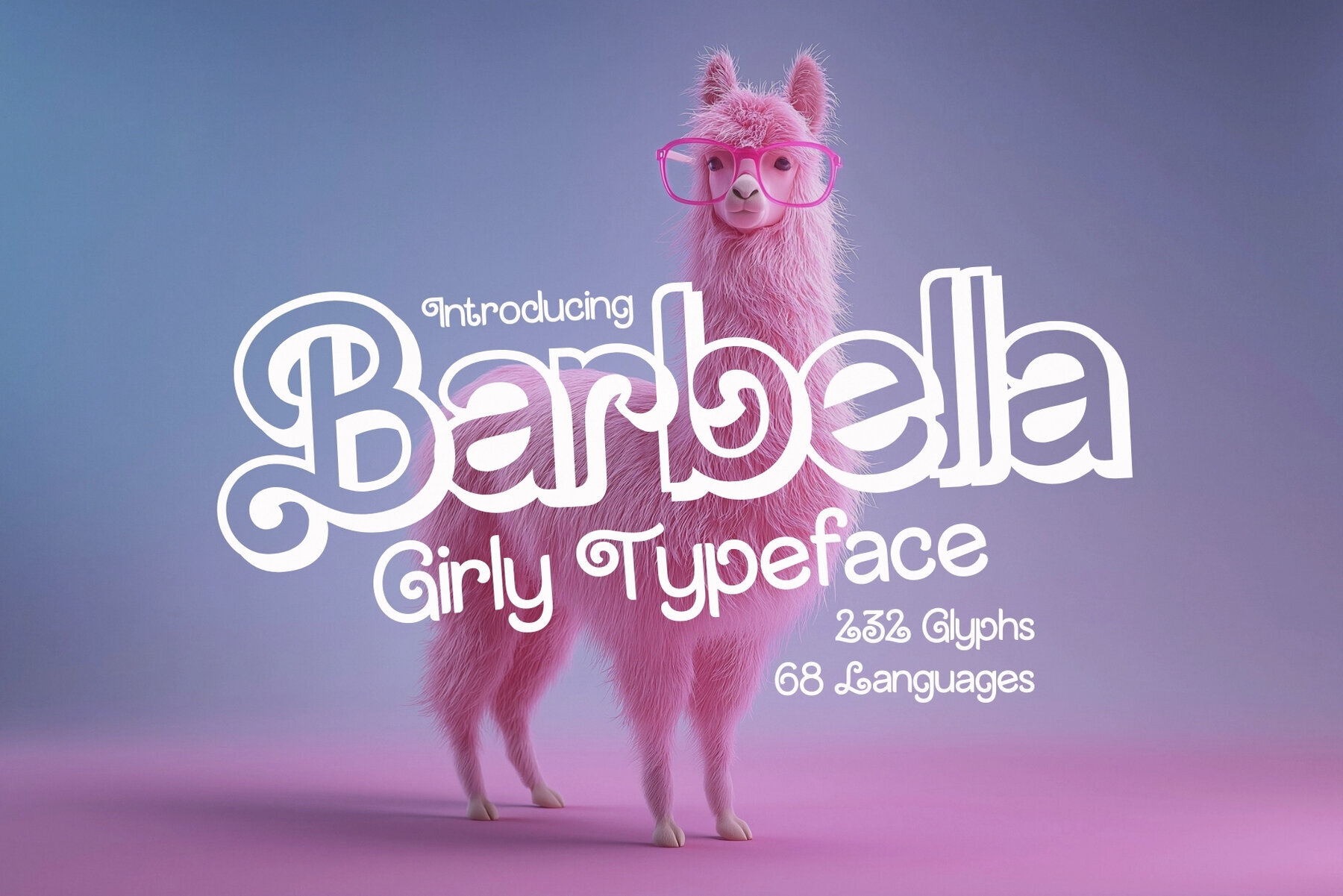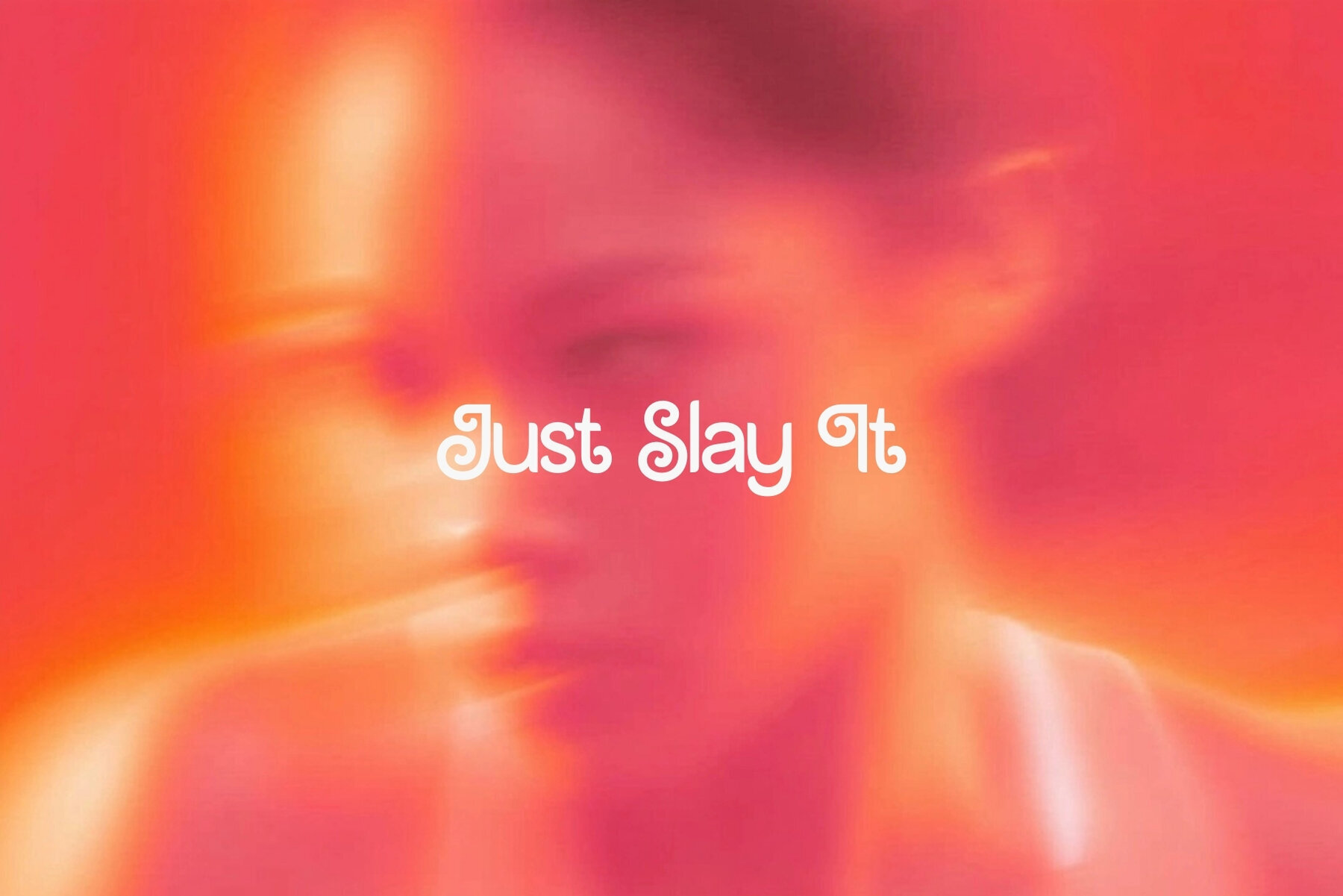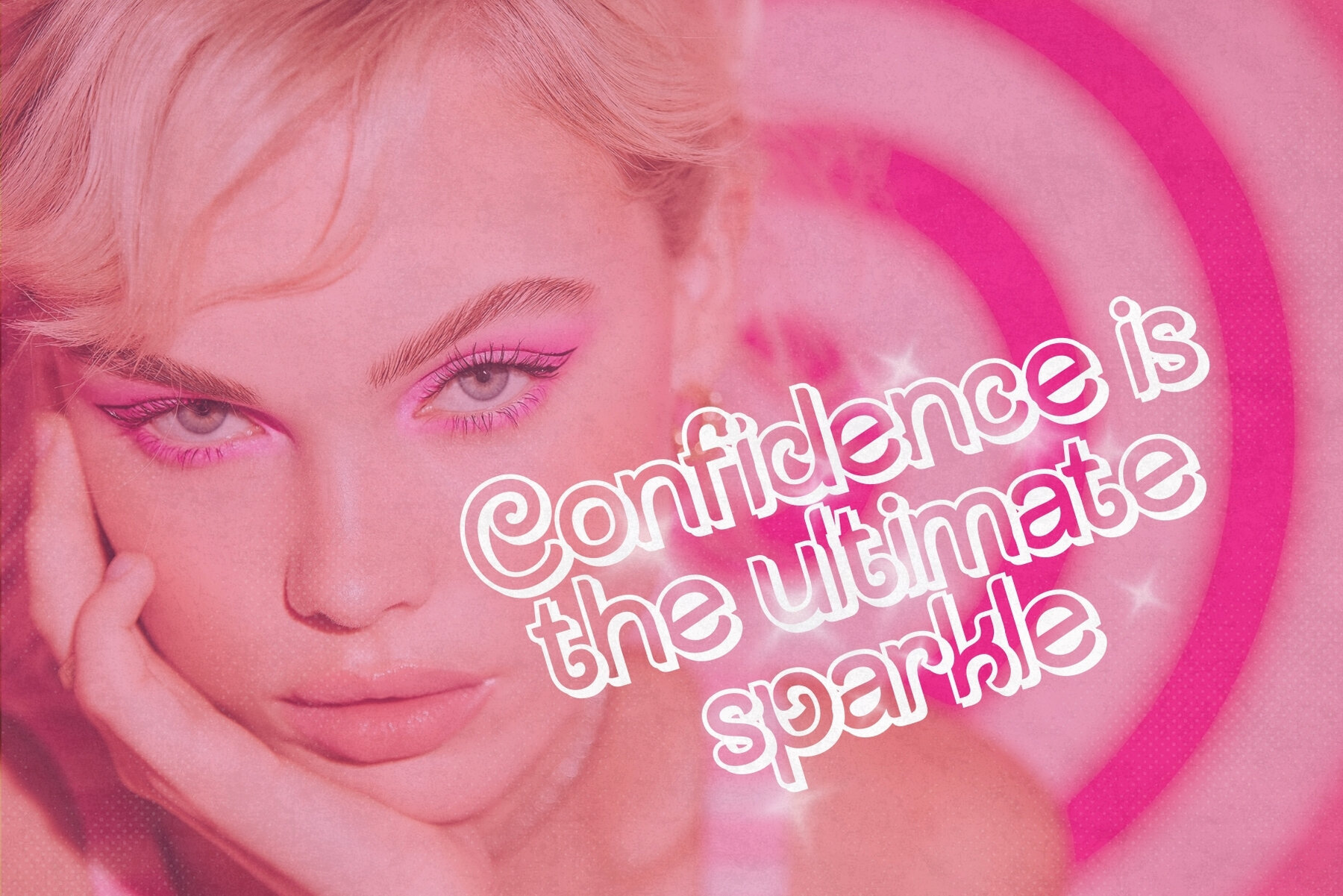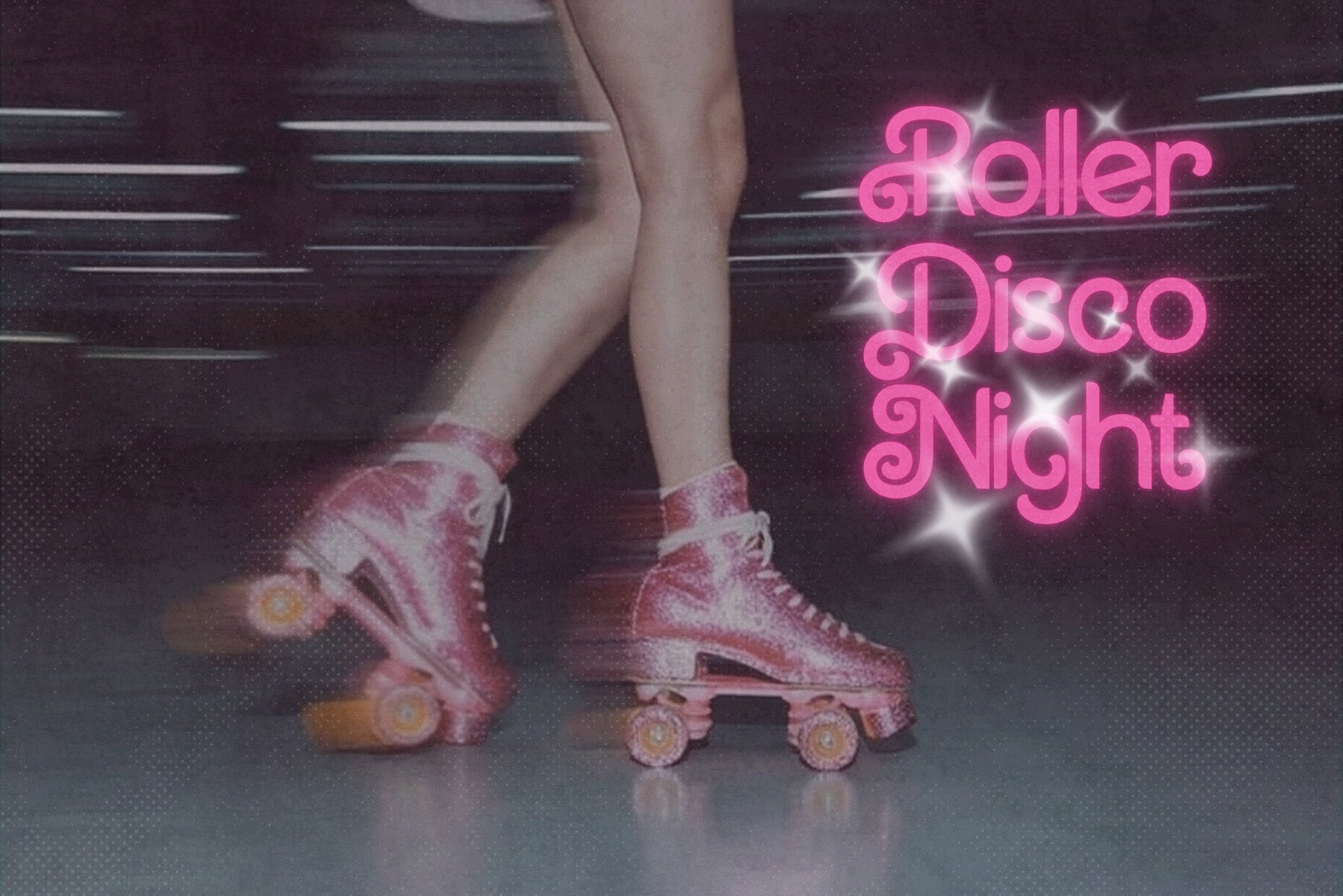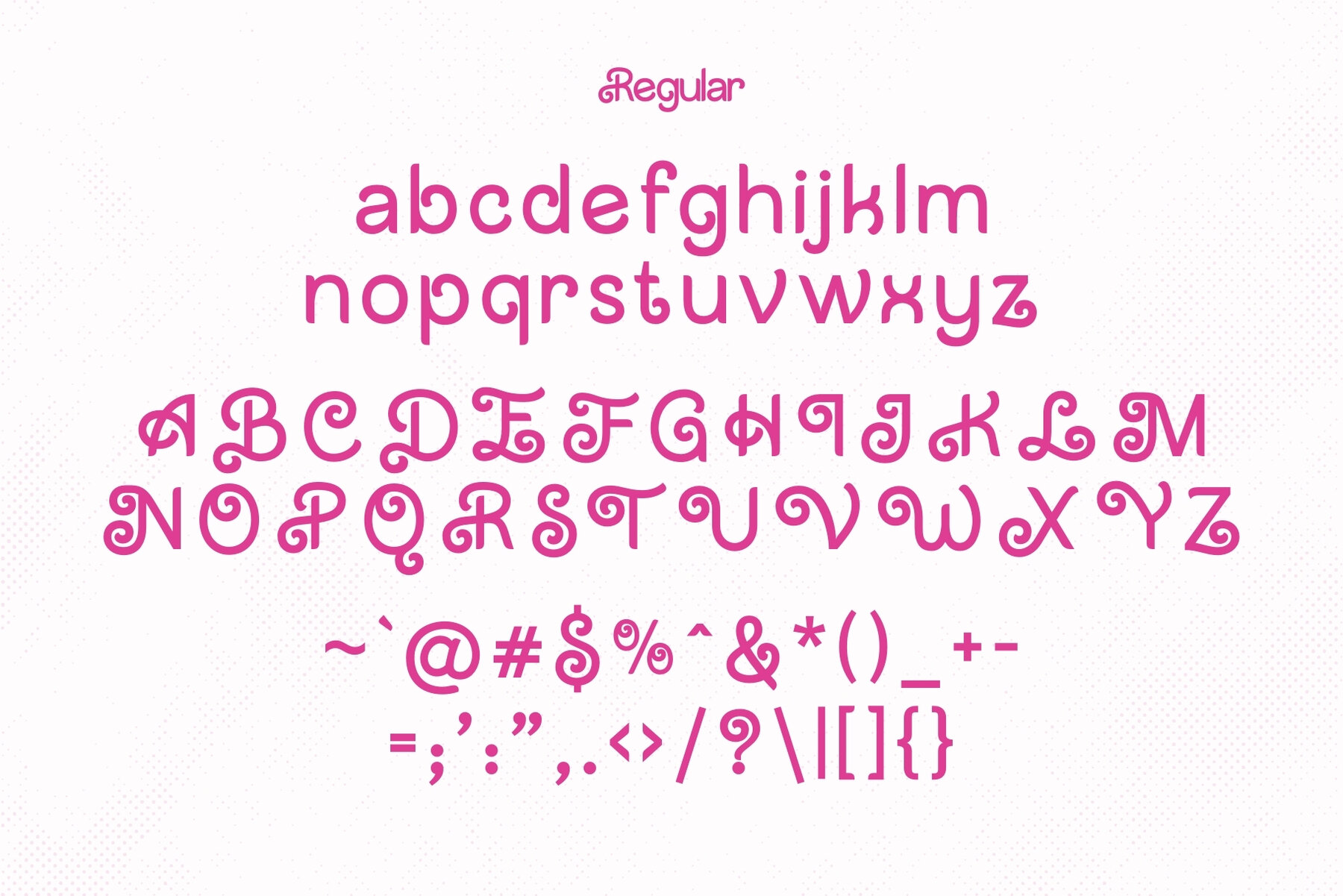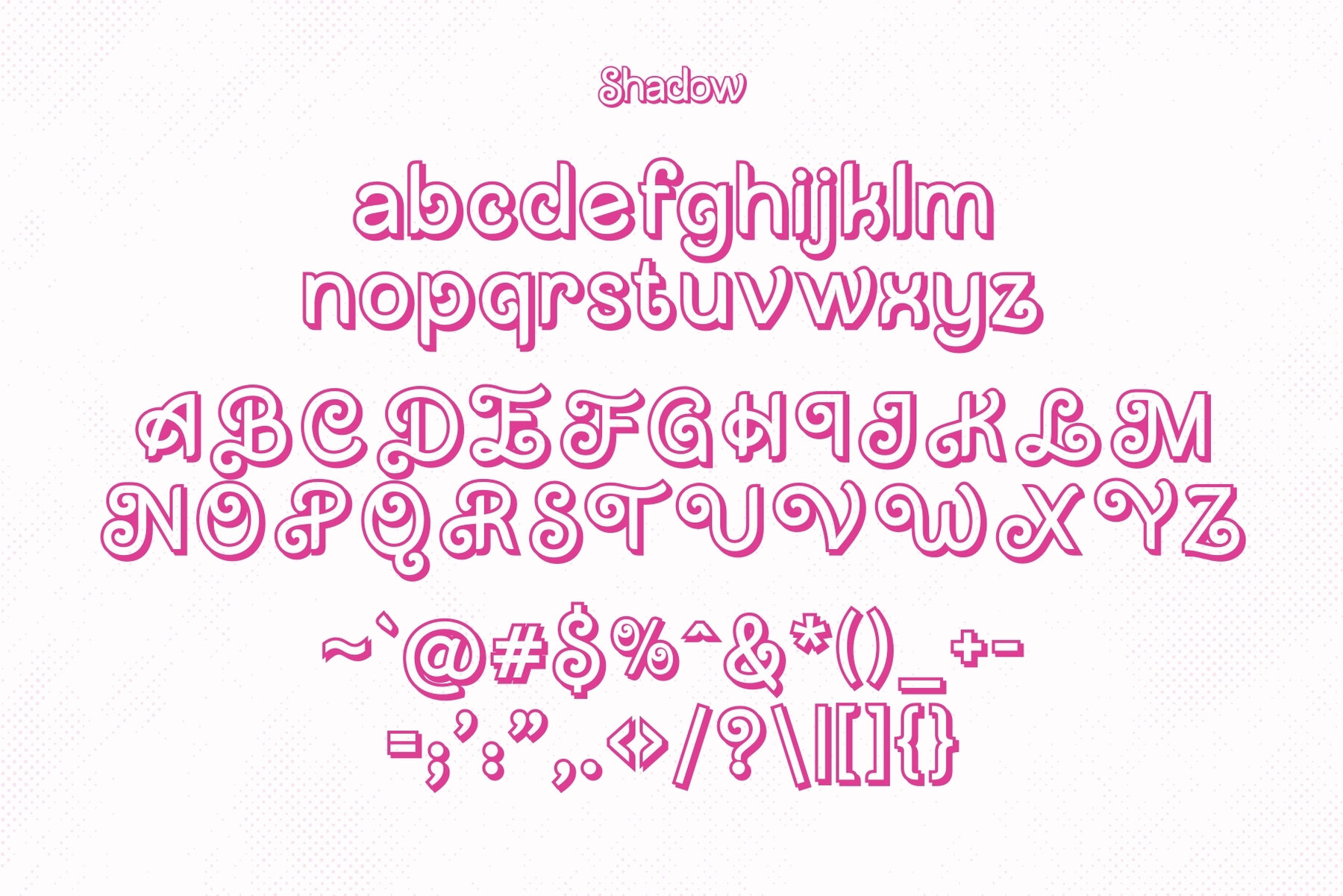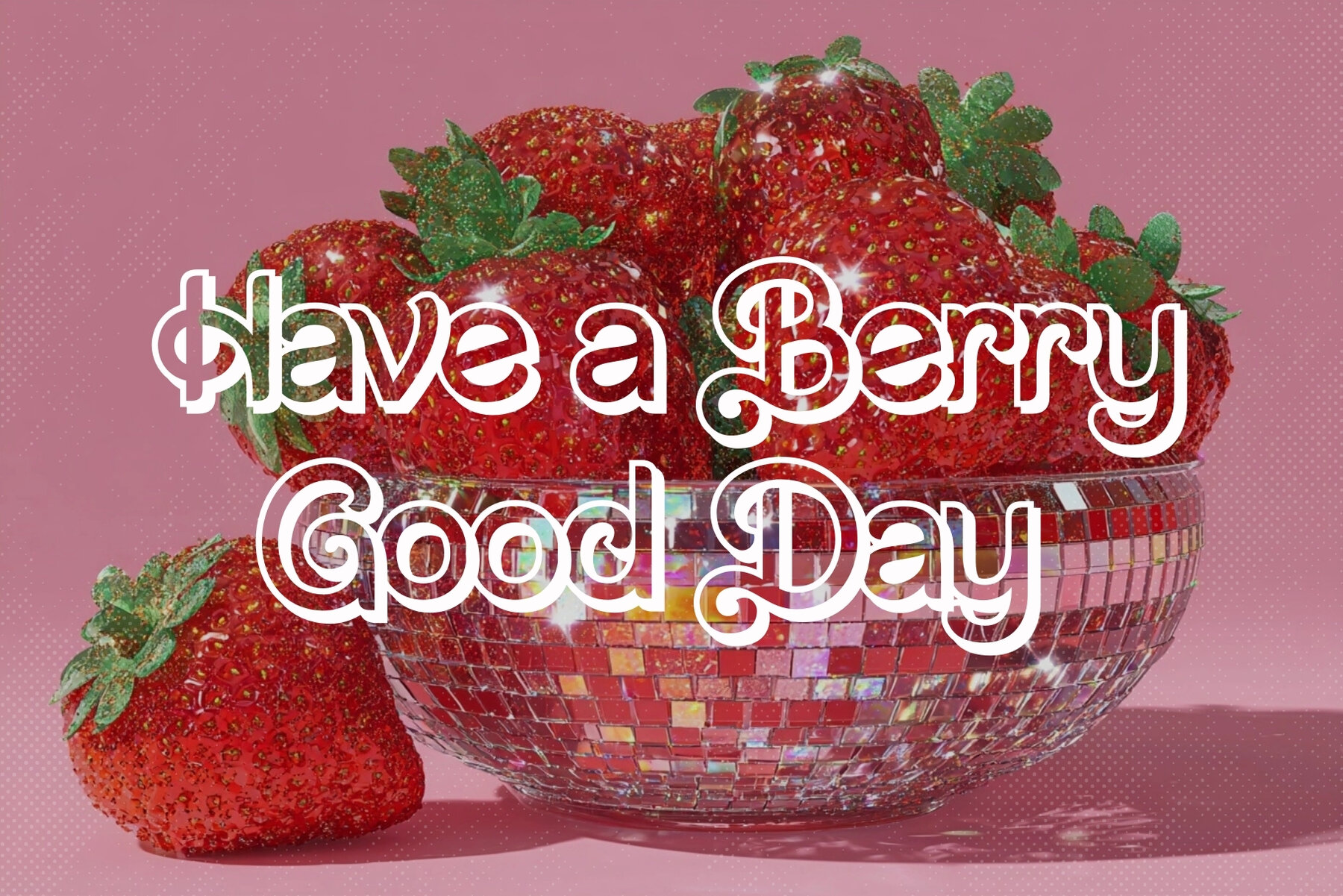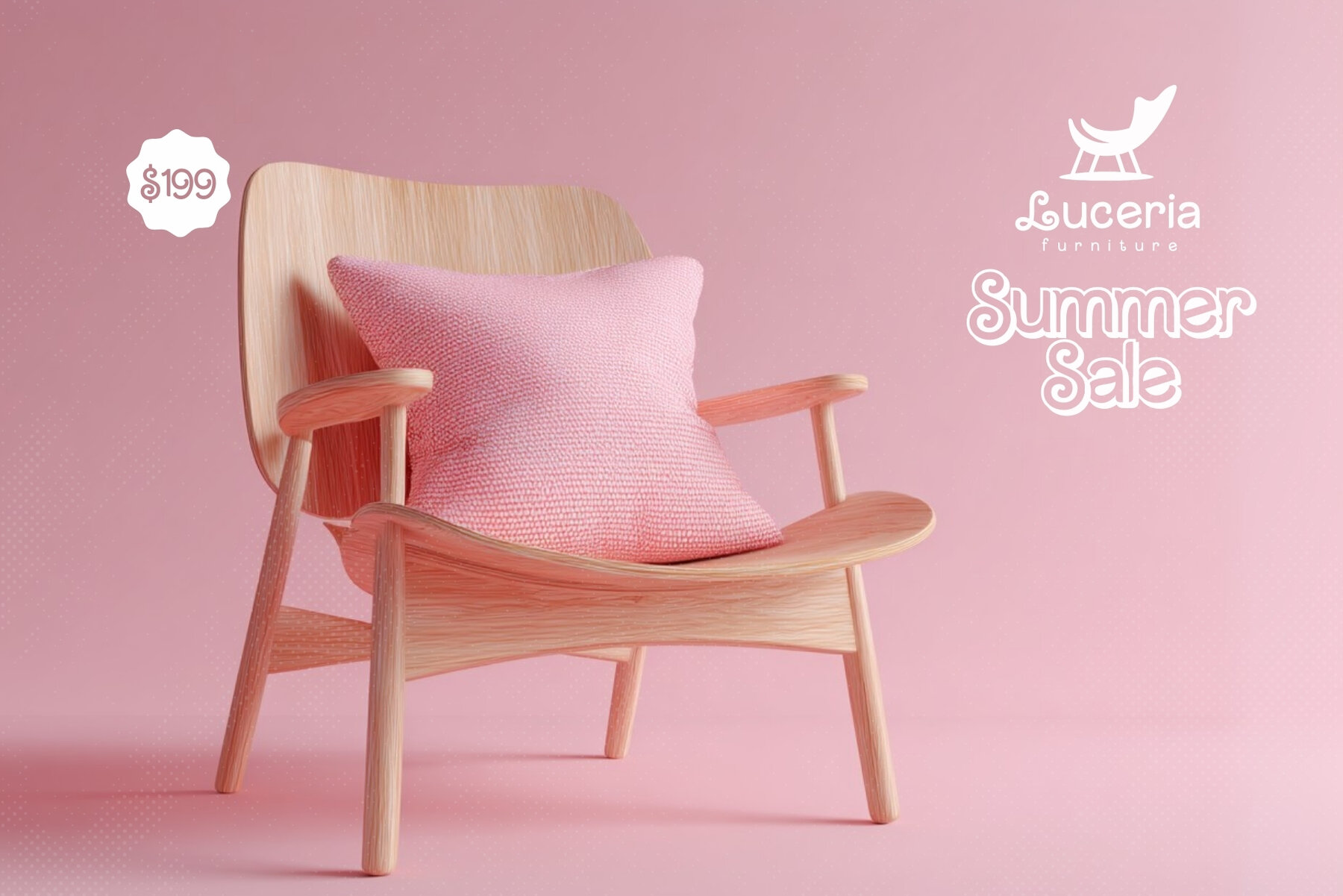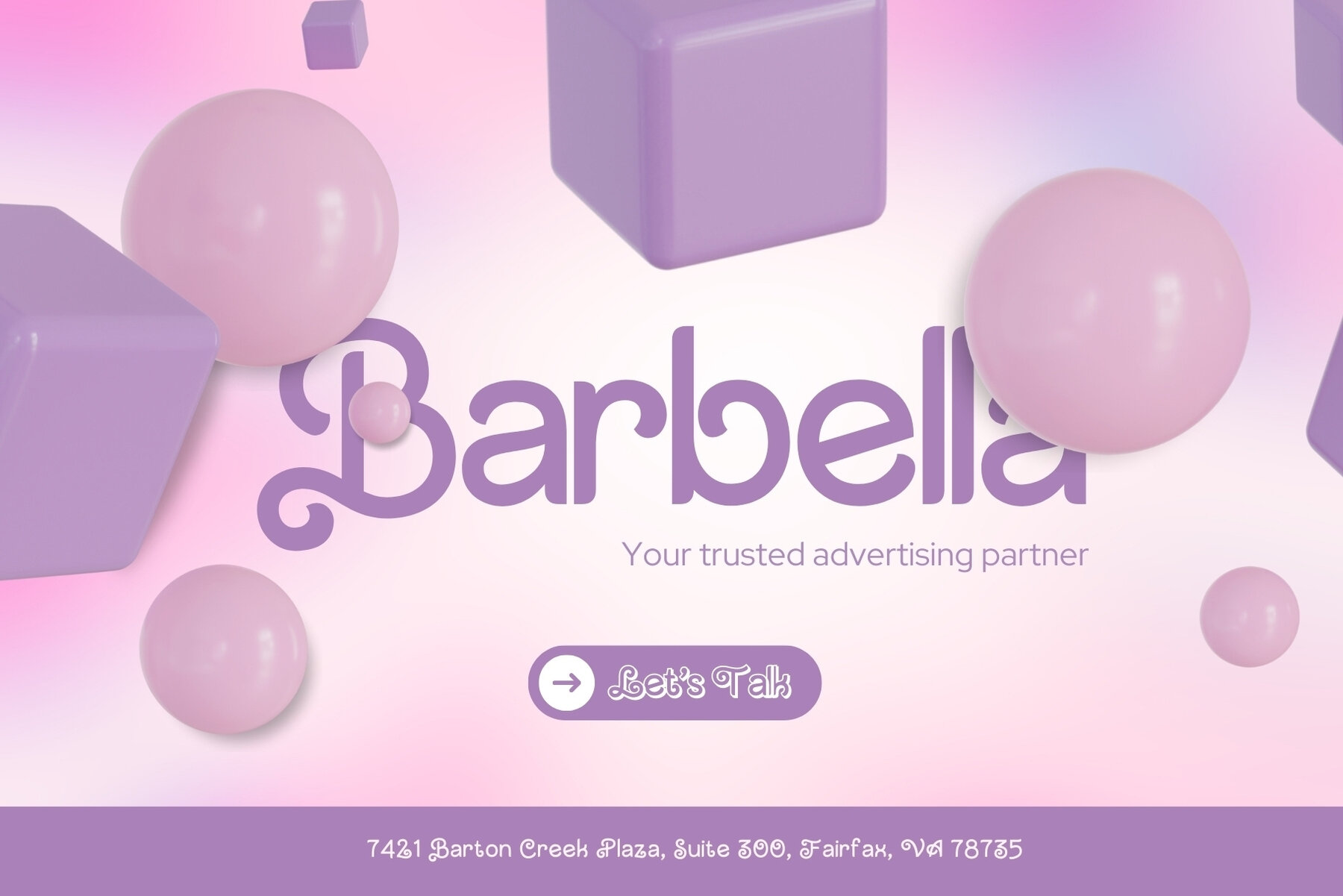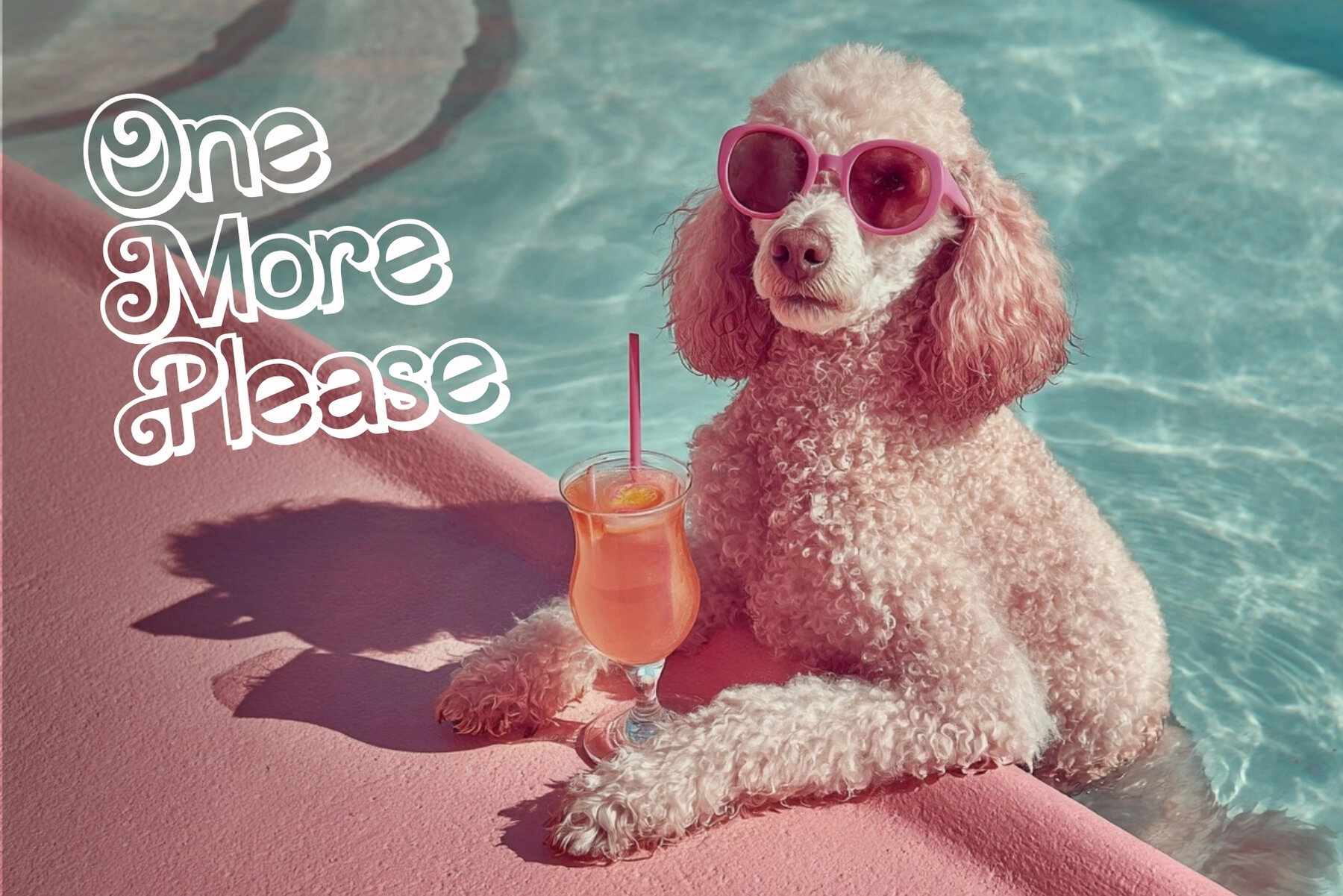
Barbella Font
Immerse yourself in confidence and style with the Barbella typeface, designed to command attention with its bold and glamorous flair. Featuring chic curves and an expressive personality, Barbella is perfect for bringing a touch of sparkle to any project. Barbella captures the essence of fun and femininity, making it the ideal choice for designs that require a touch of sophistication. Whether you're creating eye-catching logos, trendy merchandise, or vibrant editorial layouts, this typeface delivers an impressive wow factor, turning every word into a moment of glamour.Barbella Typeface: Confidence and Glamour
Perfect for Various Projects